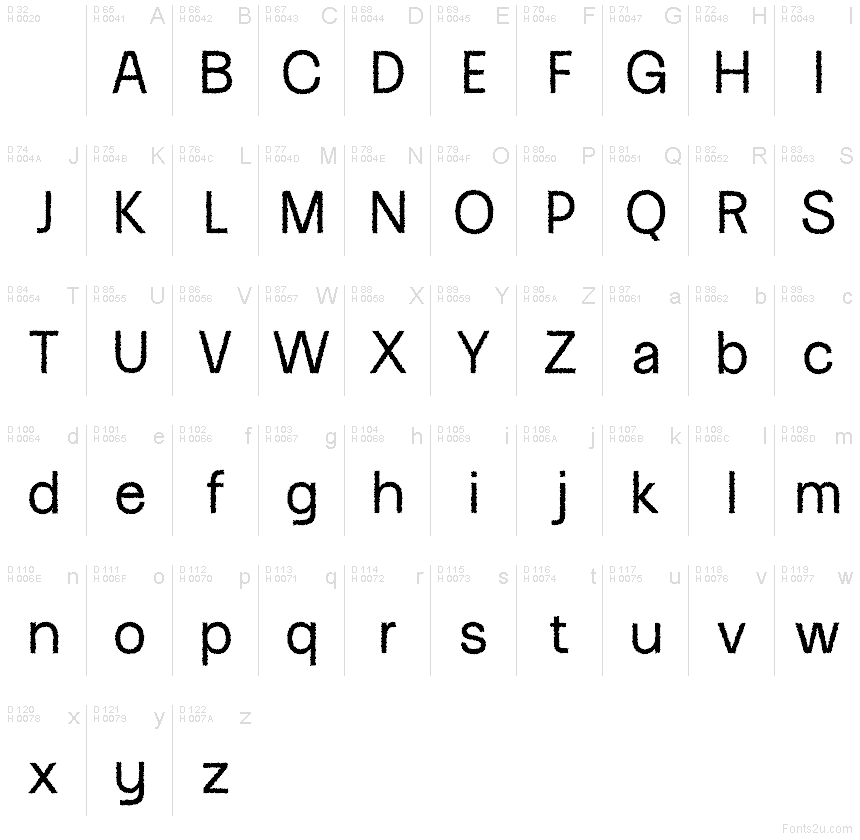
RavioRough-Regular Demo
Ravio Rough font from Craft Supply Co. is a free display font that introduces an appealing organic feel and a rustic appearance with its eroded letters. Rugged at the edges, it captures both uniqueness and consistency in an unusual manner which calls for attention at every turn.
Add Ravio Rough to your book covers, magazine designs, packaging boxes, art tool branding project, or online publications. The brush-like typeface suits posters for artistic events such as painting and performing arts exhibitions or live music concerts as well, with sections for names and dates all presented in the same wonderful design.